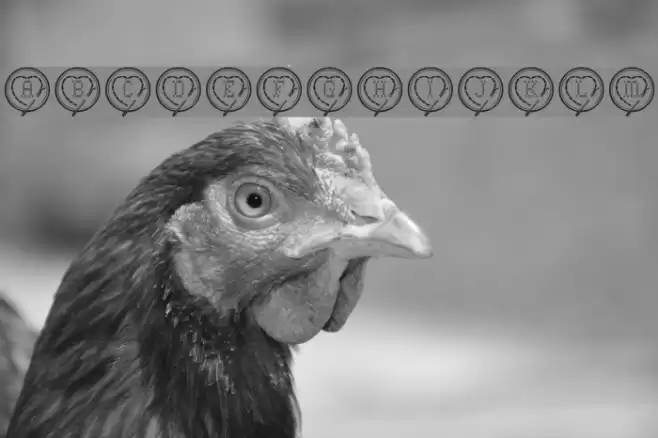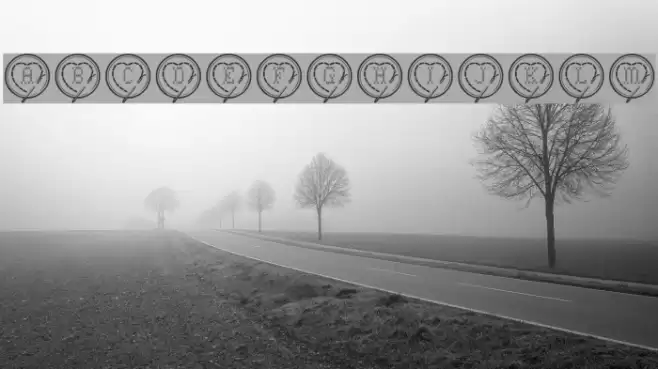
Cross Stitch Hearts Font
Cross Stitch Hearts Description
This font features a unique cross-stitch design, with each character enclosed in a circular border that resembles an embroidery hoop. The letters and numbers are crafted to mimic the appearance of stitched patterns, giving it a handcrafted and artisanal feel. The font is decorative and playful, with a touch of nostalgia, reminiscent of traditional embroidery techniques. The circular frames add a cohesive and structured element to the overall design, making it suitable for projects that require a touch of creativity and charm.
A decorative cross-stitch style font with circular frames from Valentine's Day fonts.
- Proposed Projects: Ideal for craft projects, DIY invitations, greeting cards, and any design work that seeks to evoke a handmade or vintage aesthetic.
- Overall Style: Vintage
- Use Case: Logos, Headlines, Decorative text